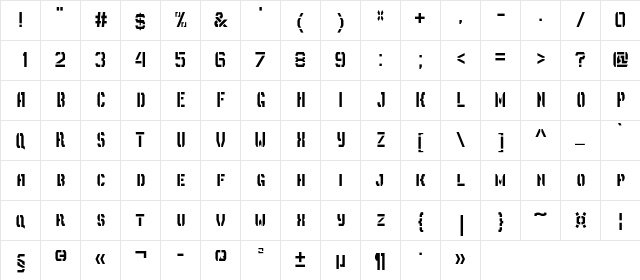
Depot Trapharet Regular
| Foundry | Lukyan Turetskyj |
| Designer | Lukyan Turetskyj |
Design Context for Depot Trapharet Typeface
Depot Trapharet takes a measured approach to typography — its balanced proportions and neutral character make it a reliable workhorse for both digital and print work.